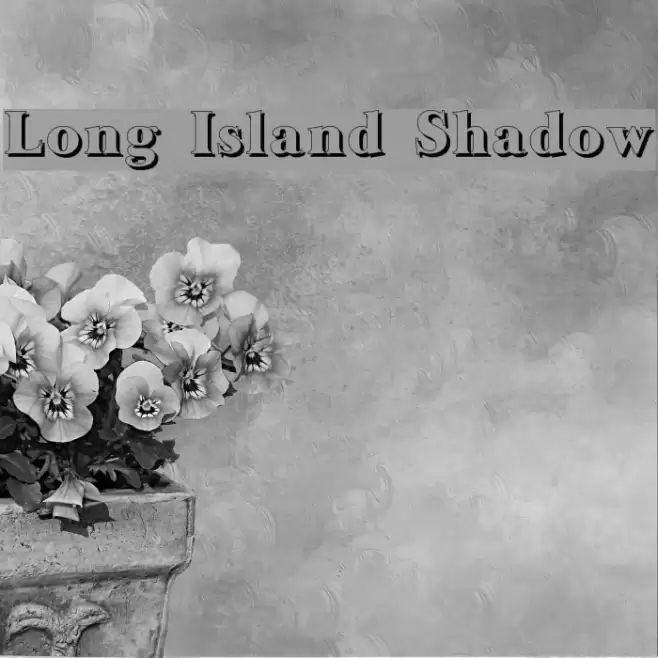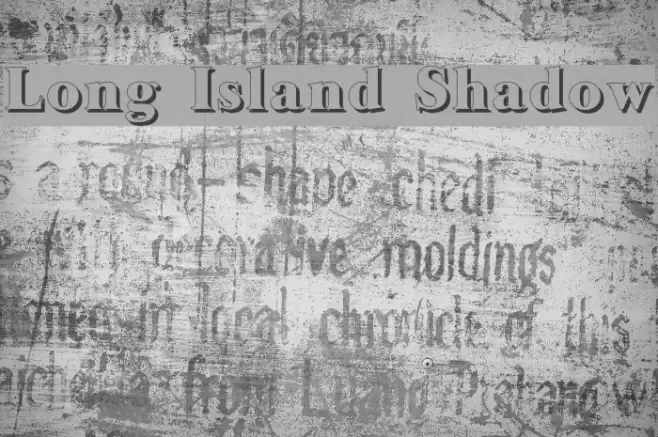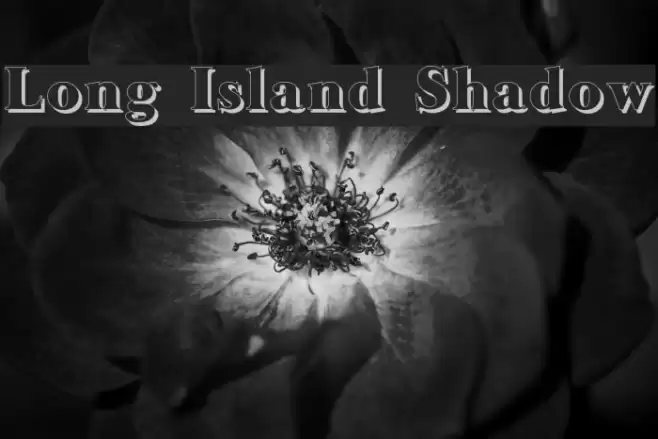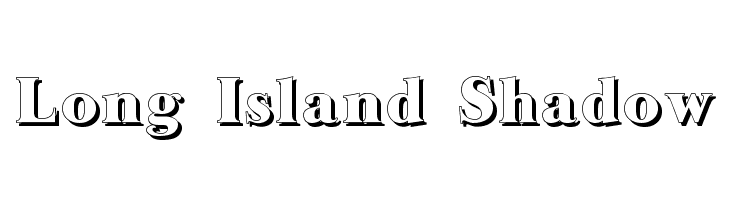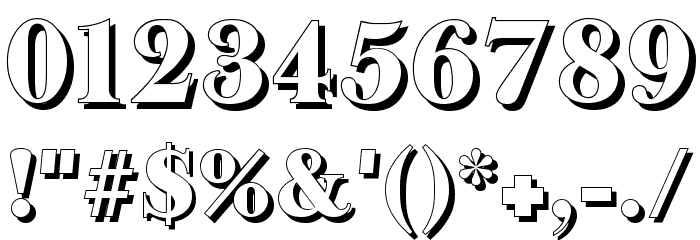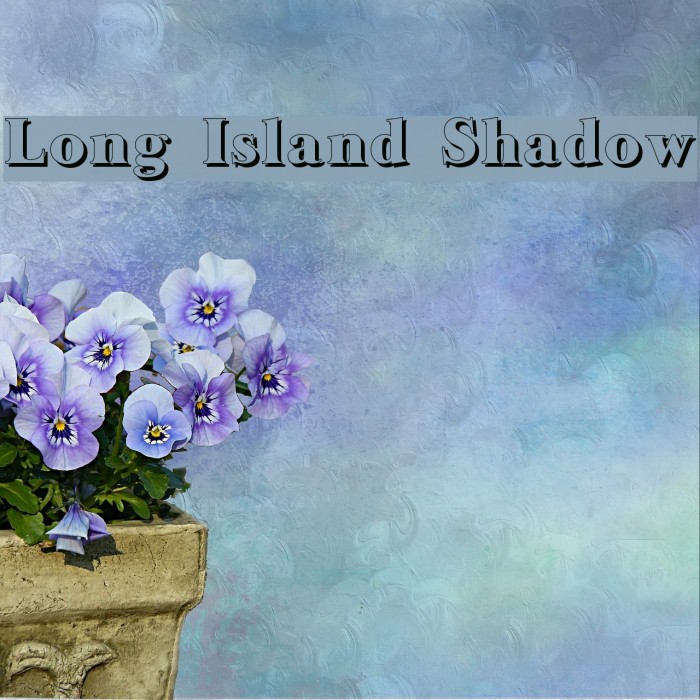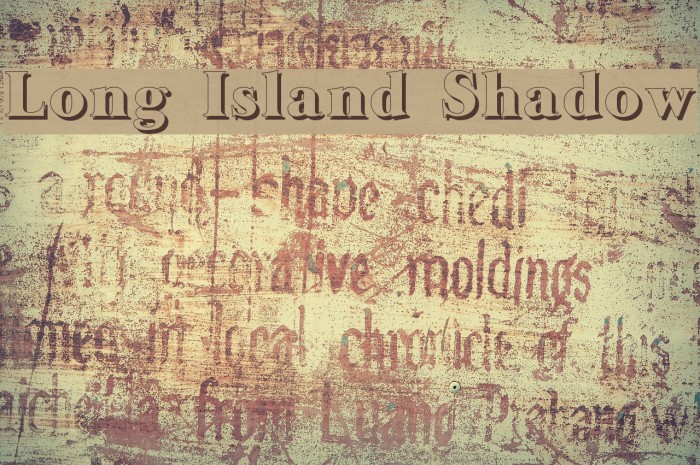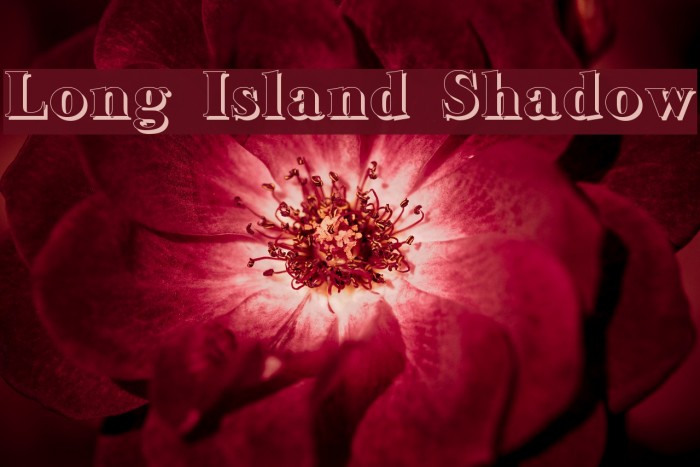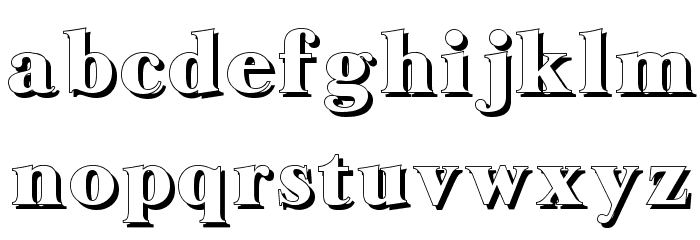
Long Island Shadow Font
Long Island Shadow Description
This font features a bold and striking design with a shadow effect that gives it a three-dimensional appearance. The letters are serifed, adding a touch of classic elegance, while the shadow creates a sense of depth and drama. The uppercase and lowercase characters maintain a consistent style, with the shadow effect enhancing their visual impact. Numbers and special characters are also included, each with the same shadowed design, making the font versatile for various uses. The overall look is both decorative and functional, suitable for eye-catching headlines or titles.
A bold serif font with a dramatic shadow effect, ideal for striking headlines from Uncategorized fonts.